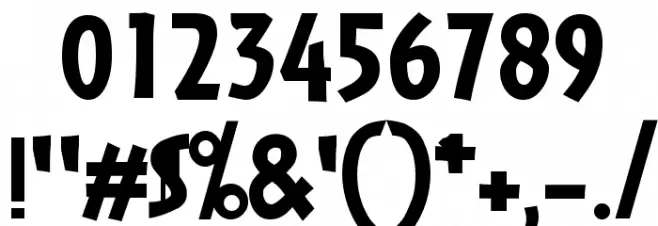
Tothepoint ExtraBold Font
Tothepoint ExtraBold Description
This font features bold, playful characters with a slightly whimsical touch. The uppercase letters are robust and have a strong presence, while the lowercase letters maintain a consistent style with a slightly rounded appearance. The numbers are clear and easy to read, matching the boldness of the letters. Special characters are creatively designed, adding a unique flair to the overall style. The font's thick strokes and dynamic shapes make it stand out, perfect for capturing attention.
A bold, playful font with whimsical, dynamic characters from Uncategorized fonts.
- Proposed Projects: Ideal for children's books, playful branding, eye-catching posters, and creative advertising campaigns.
- Overall Style: Playful, Whimsical